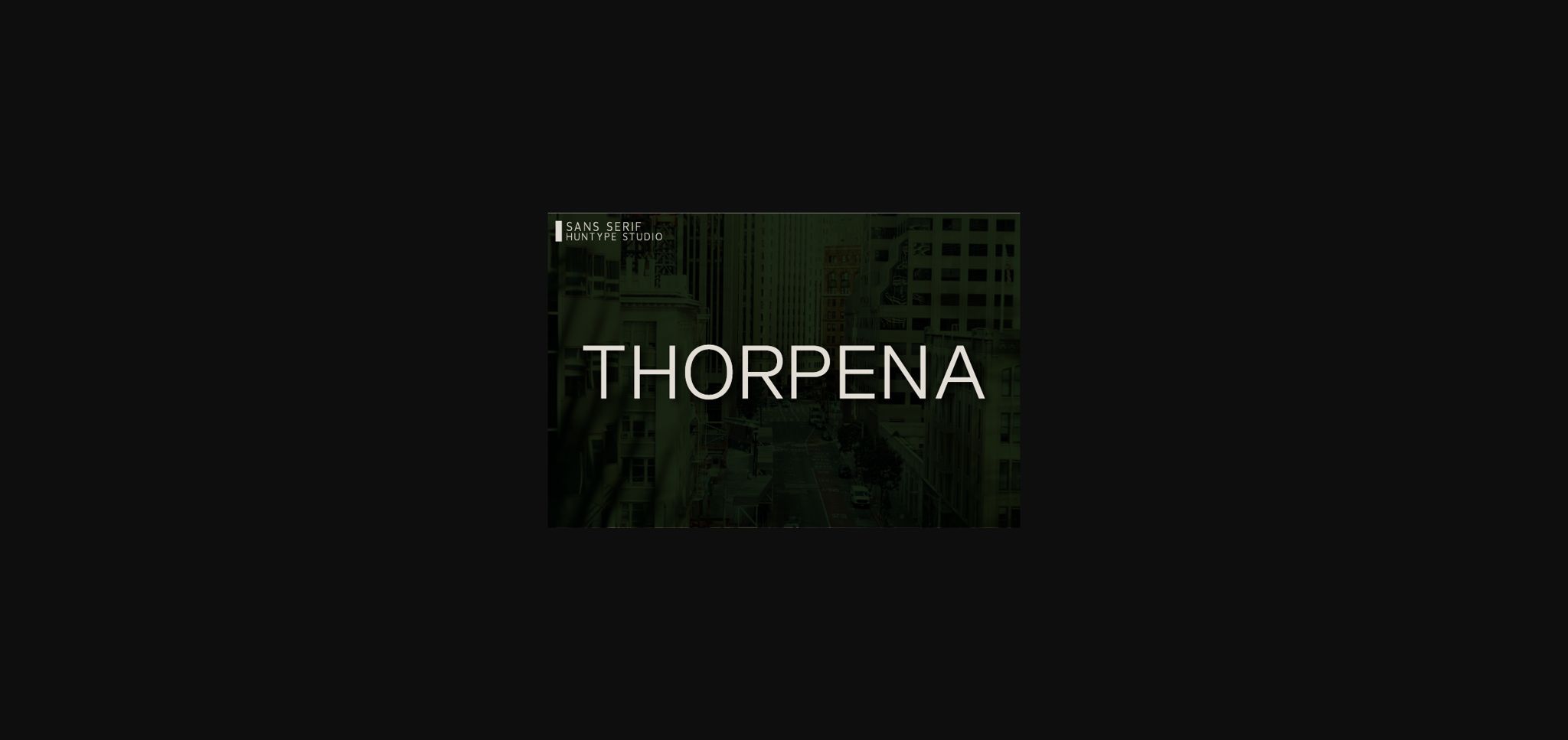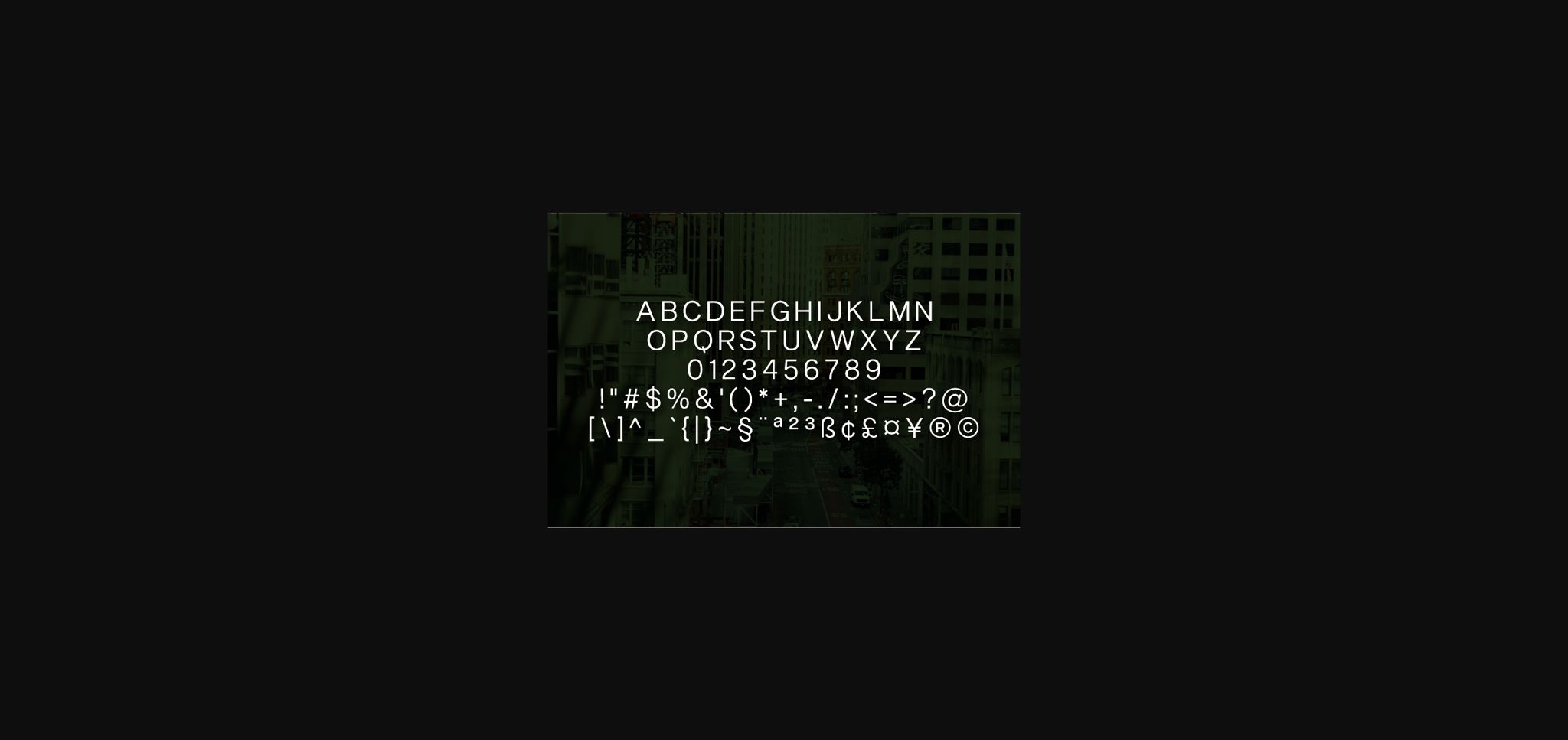
Thorpena Font
About Thorpena Font
Thorpena is elegant sans serif precisely designed for geometric perfection. Thorpena fits perfectly to any kind of modern graphic design project, it can be strikingly beautiful to look at as a logotype or pleasure to read in a long text. It will definitely add a modern look and sense of professionalism to any piece of typography.